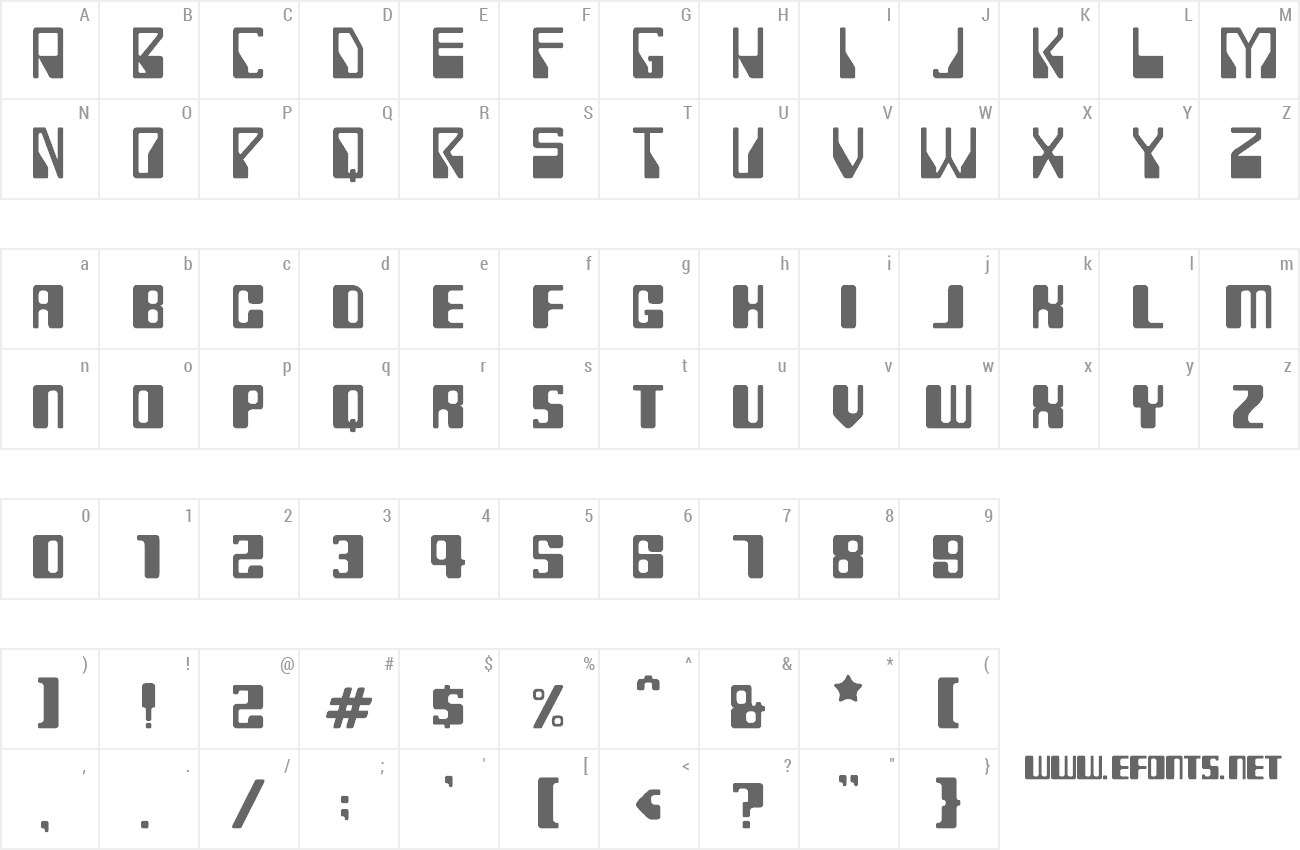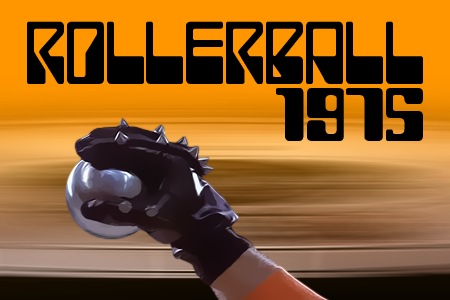
Preview and download Rollerball 1975 Font. Created by Anthony Robinson in Techno Sci-fi styles with 100% Free license.
| Font name: | Rollerball 1975 |
| Author: | Anthony Robinson |
| Note by Anthony Robinson | |
| Upper case is the Title font and lower case is the font used in the movie for player shirt numbers and arena graphics. |